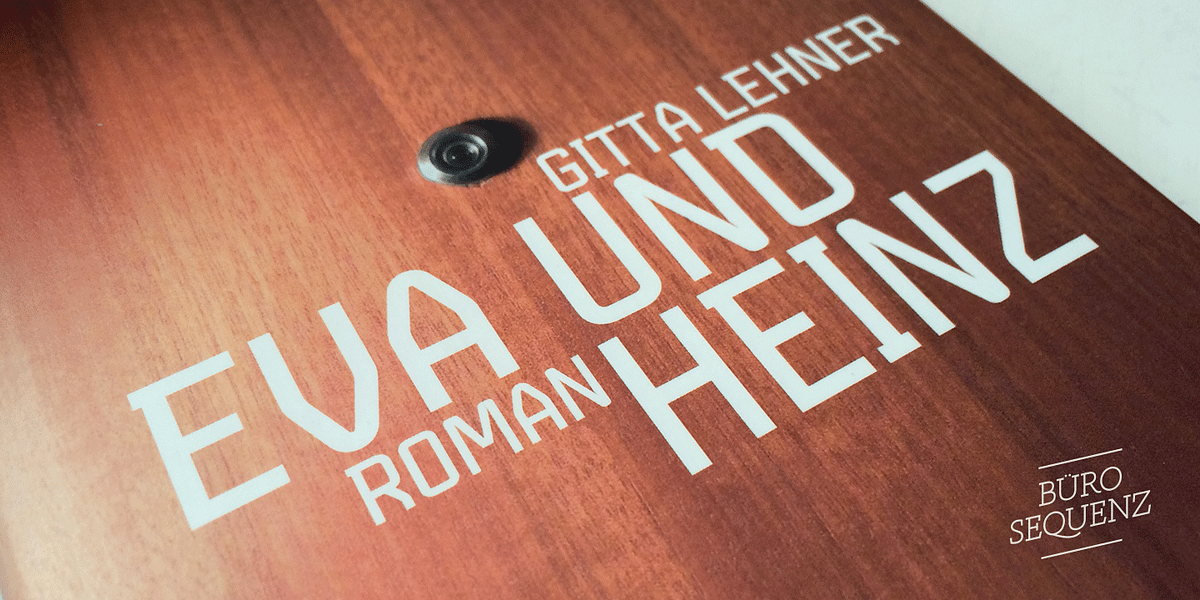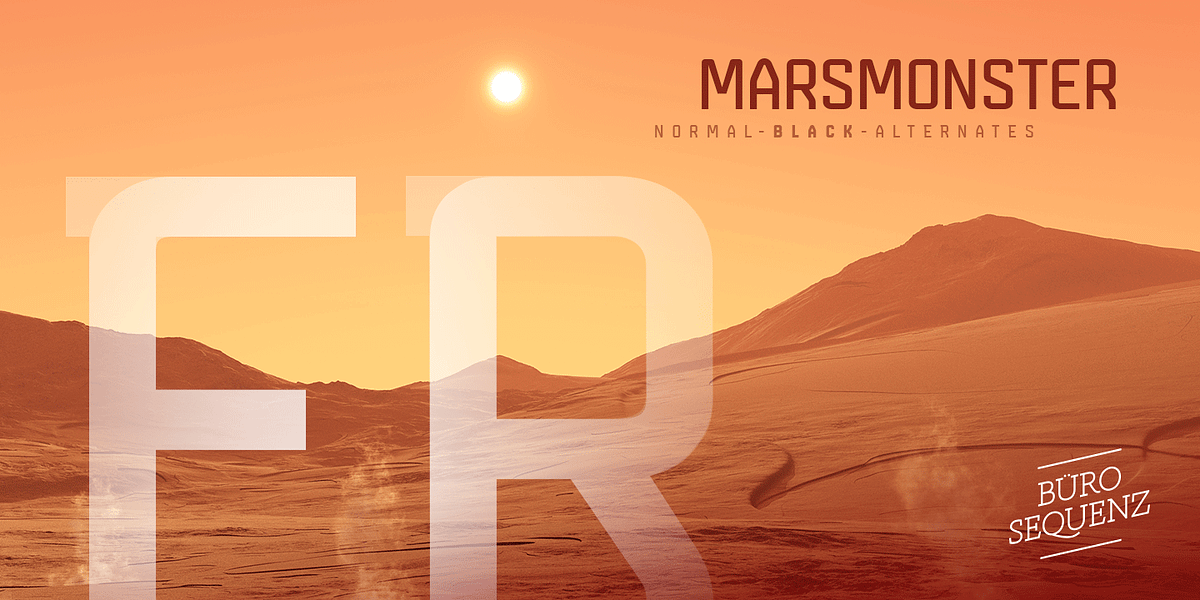
Marsmonster
Marsmonster is a geometric sans-serif font characterized by its linear forms and softened corners. It's an all-caps typeface available in three weights. This makes it versatile for use in signage, headings, and captions where a bold, modern aesthetic is desired.